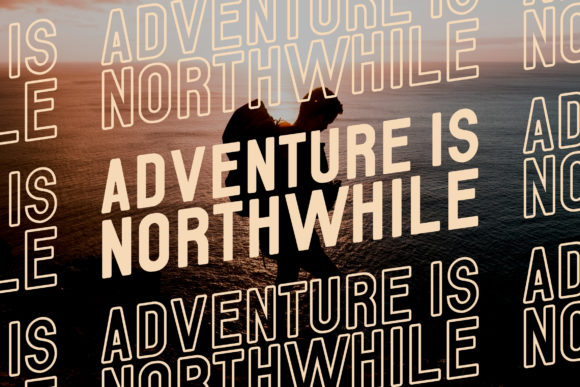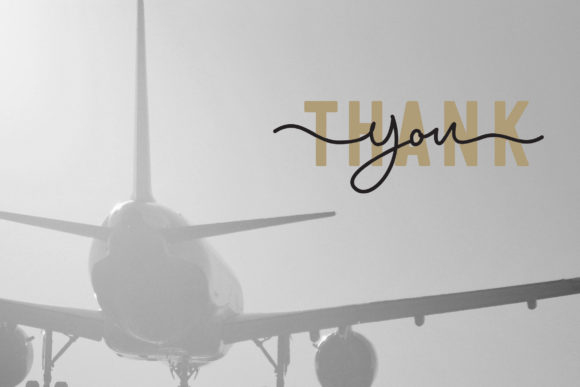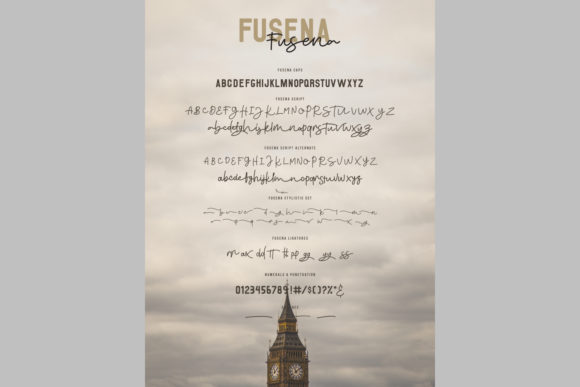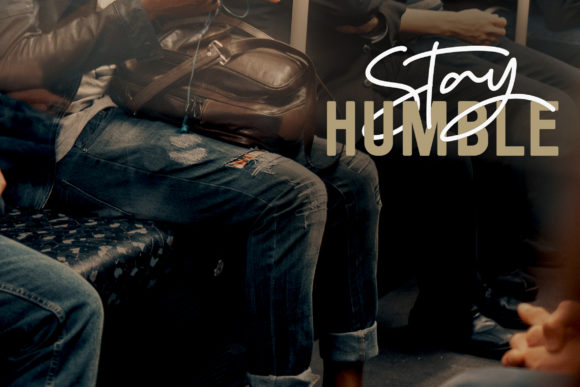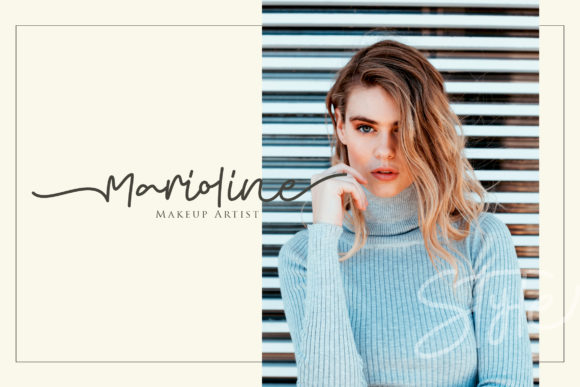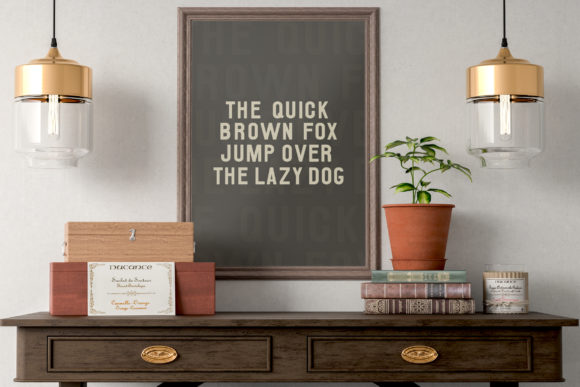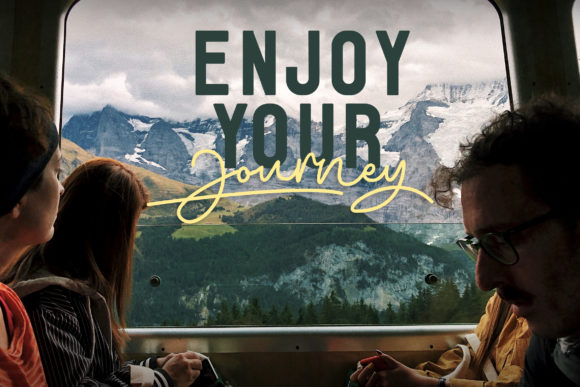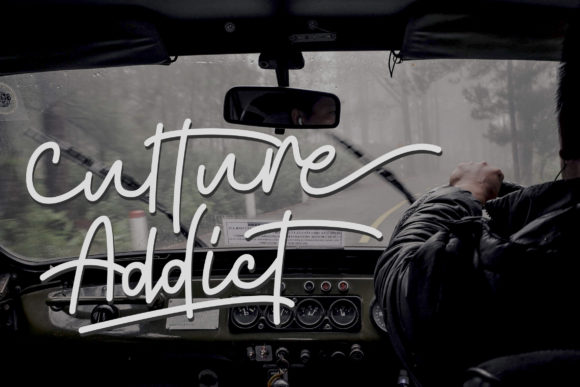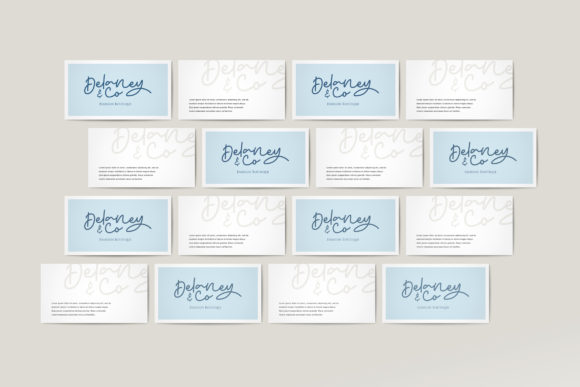
Fusena Duo Font
Fusena is a match made in heaven. This gorgeous font duo brings together a charming script and elegant sans serif font that work together like a charm.